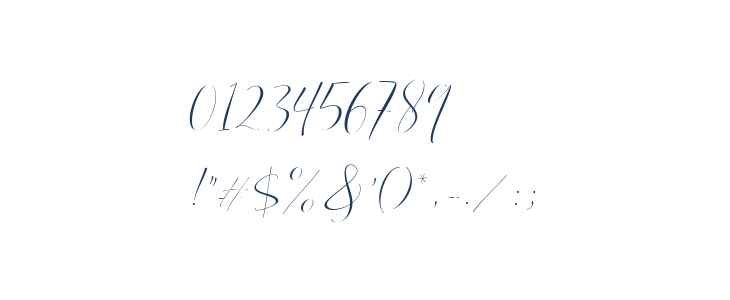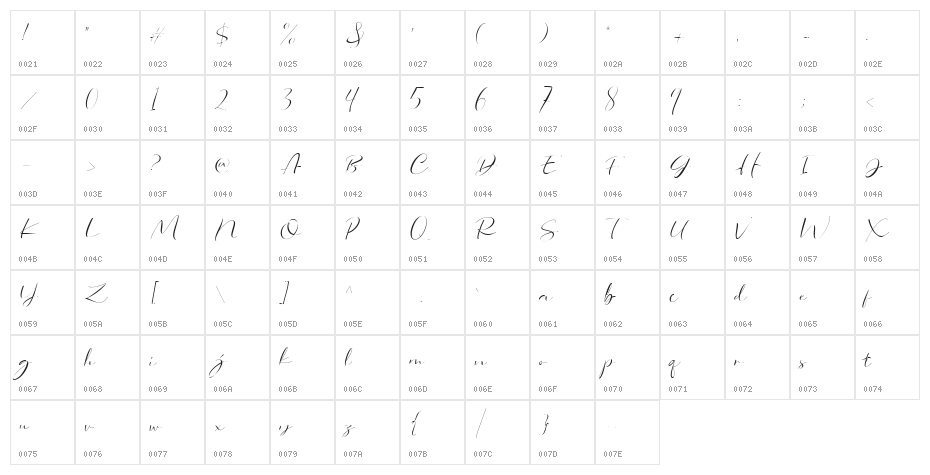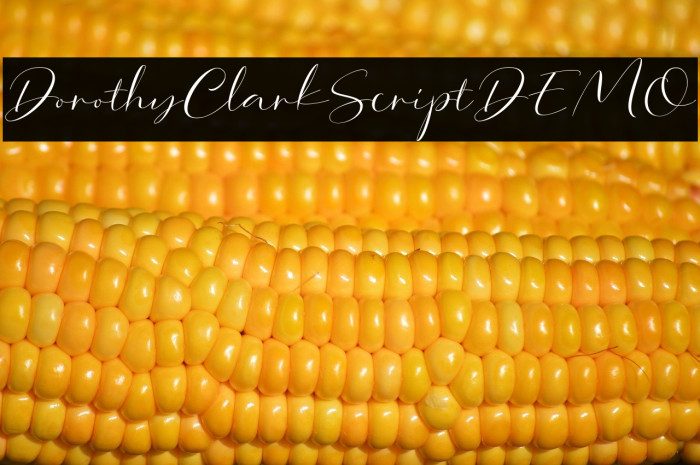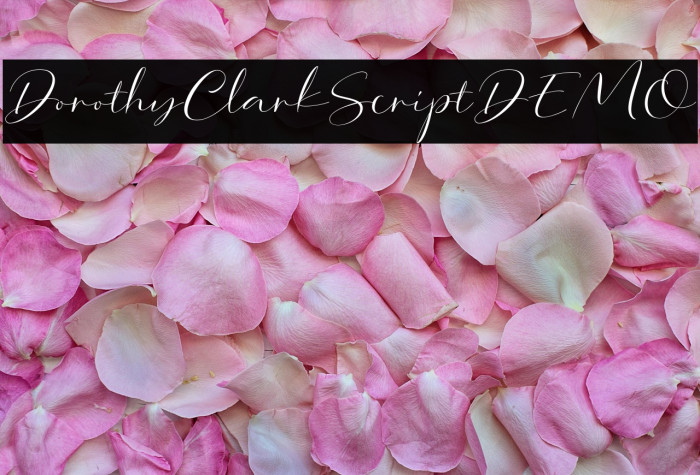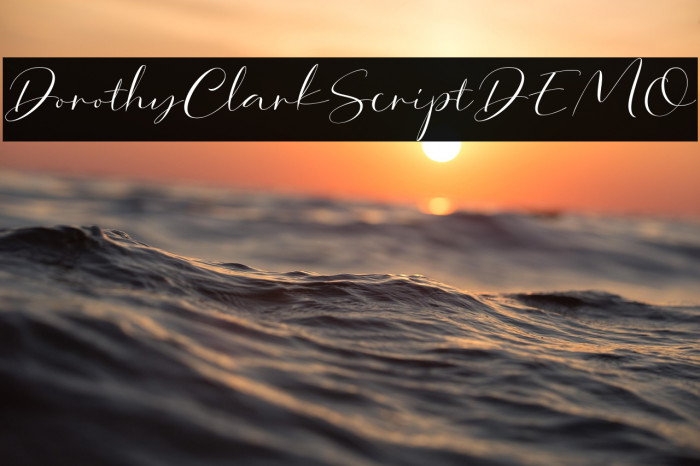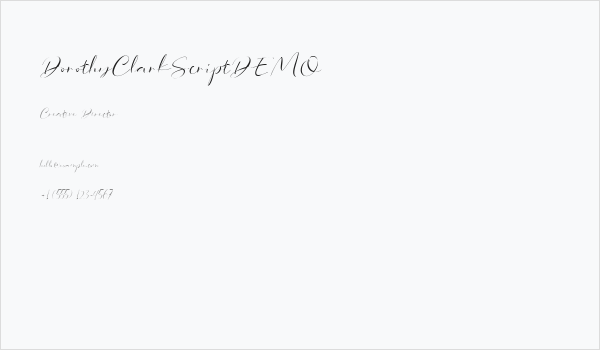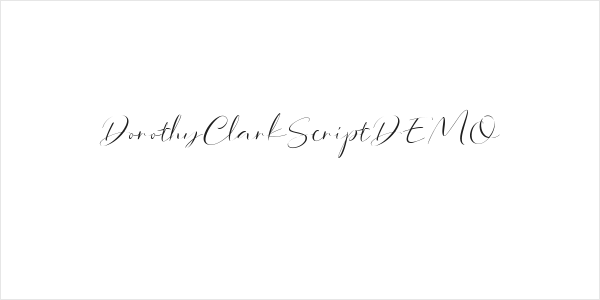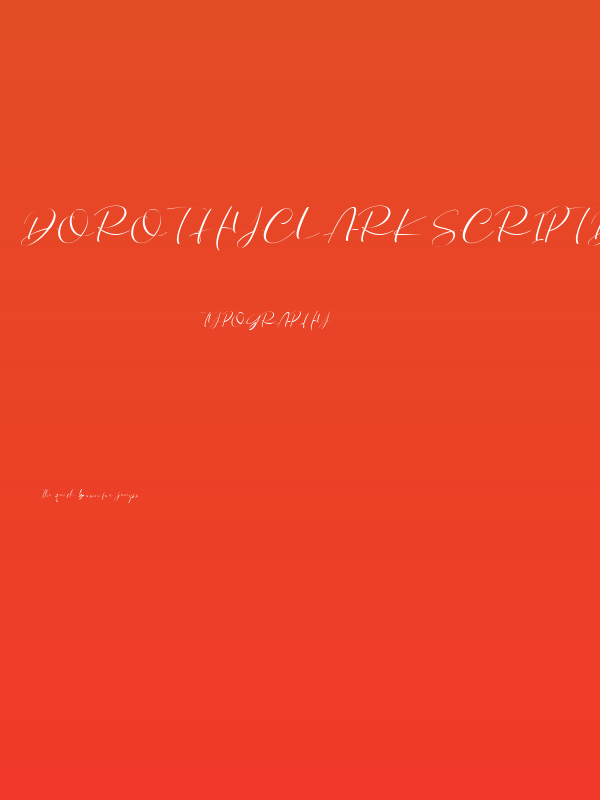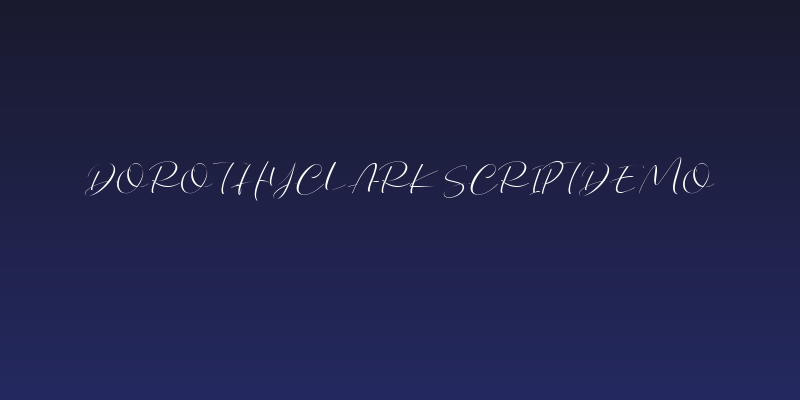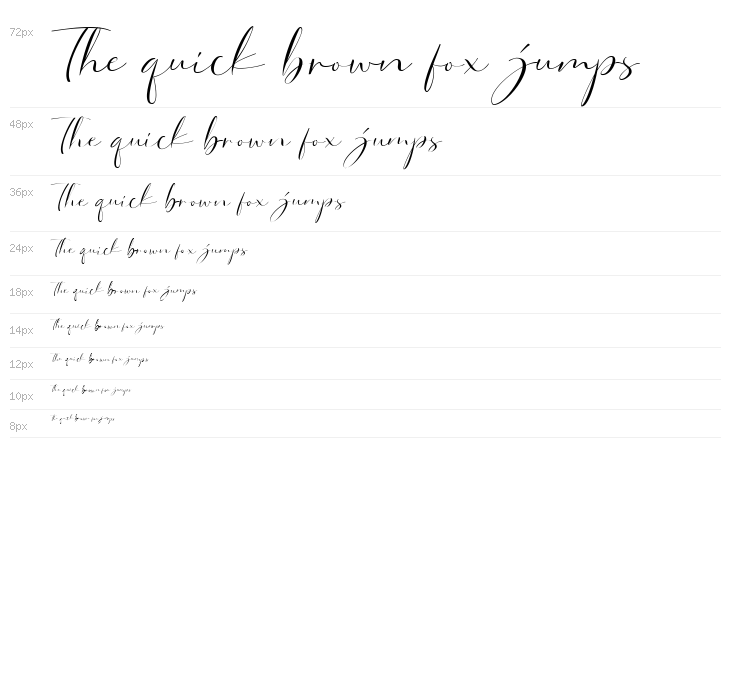
DorothyClarkScriptDEMO Font
DorothyClarkScriptDEMO Description
This elegant script font features a flowing, cursive style with delicate, sweeping strokes that convey a sense of grace and sophistication. The characters are connected, creating a seamless and fluid appearance. The uppercase letters are slightly more embellished, with flourishes that add a touch of flair, while the lowercase letters maintain a consistent, smooth flow. The numerals and special characters complement the overall style, maintaining the same elegant curves and thin lines. This font is well-suited for projects that require a personal, handwritten touch, such as invitations, greeting cards, or branding materials.
| Overall Style | Elegant, Sophisticated |
| Use Case | Logos, Invitations, Personal stationery |
| Proposed Projects | Ideal for wedding invitations, elegant branding, personal stationery, and greeting cards. |